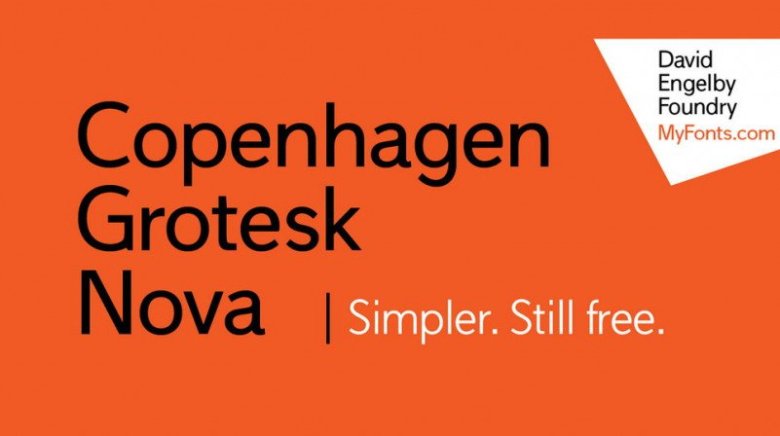
Copenhagen Grotesk Nova Font Family
Dear All. Allfreefonts introducing the new Sans serif font family. Introducing Copenhagen Grotesk Nova Font. Designed and shared by David Engelby Foundry. Copenhagen Grotesk Nova is based on its 2015 predecessor (Copenhagen Grotesk).
The Nova is carefully designed with new details, a simpler set of glyphs and with moderate descenders and ascenders in relation to less accentuated capitals. Download the whole font family of light, regular and bold for free!